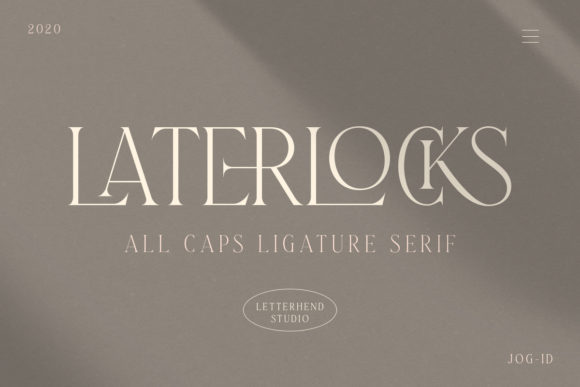
Journey into the realm of typography and unlock the elegance of Laterlocks, a serif font that exudes sophistication and timeless beauty. Crafted by the skilled hands of letterhend, Laterlocks effortlessly blends classic charm with a refreshing touch of modernity, making it the perfect choice for designers seeking to create captivating and distinctive designs.
Immerse yourself in the world of Laterlocks and discover a font that speaks volumes. Its meticulously crafted characters dance upon the page, captivating the eyes with their undeniable charm. Each letterform is a testament to the artistry and passion poured into its creation, resulting in a font that radiates elegance and refinement.
With Laterlocks, you hold the key to unlocking a world of creative possibilities. Whether you're a seasoned designer or just starting your journey into the world of typography, Laterlocks will elevate your designs to new heights. Its versatility knows no bounds, allowing you to effortlessly craft logos, branding, invitations, posters, and countless other projects that demand a touch of sophistication and timeless appeal.
Imagine your designs adorned with the grace and poise of Laterlocks. Its classic serif strokes evoke a sense of heritage and tradition, while its contemporary undertones infuse your work with a refreshing energy. The result is a visual symphony that commands attention and leaves a lasting impression.
Step into the spotlight and let Laterlocks be your creative ally. Unleash your imagination and explore the endless possibilities that await you. With Laterlocks by your side, you'll create designs that captivate audiences, resonate with hearts, and leave an indelible mark on the world of visual communication.